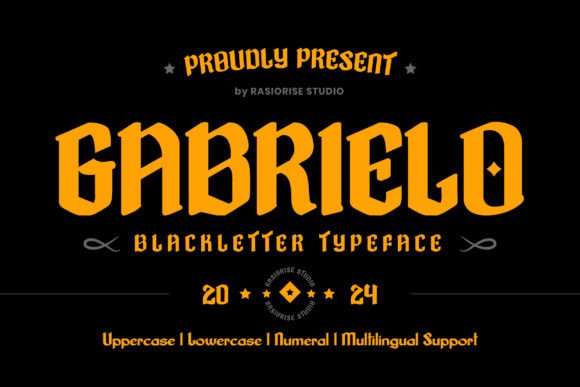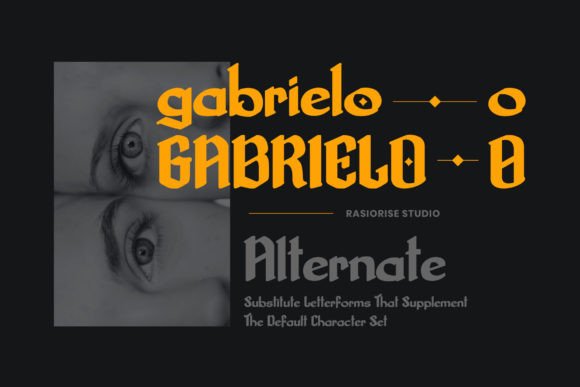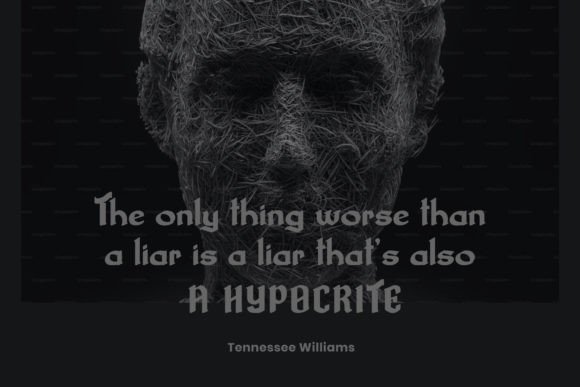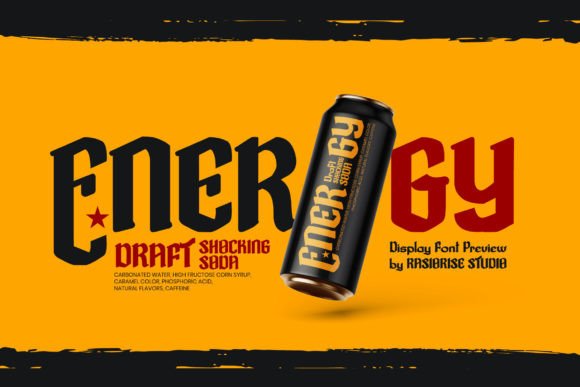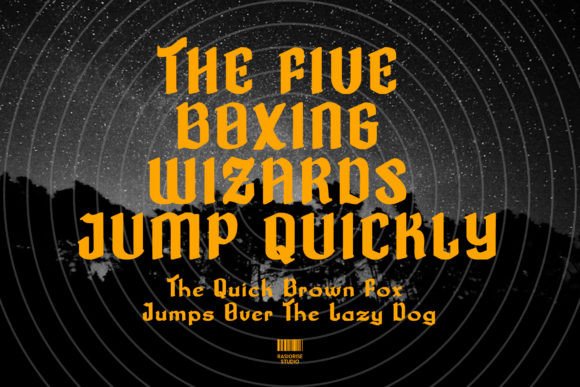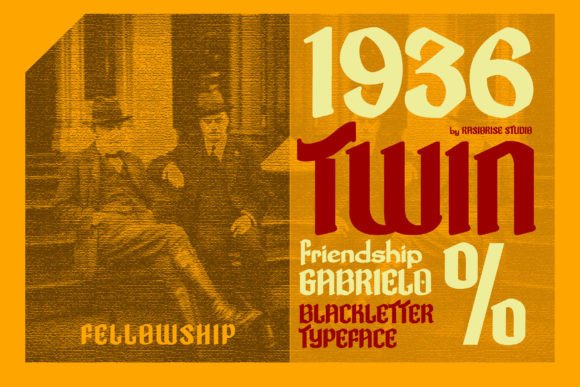
Gabrielo Font
Gabrielo is a sans-serif blackletter typeface. Gabrielo has been released for those of you who are looking for a Sans-Serif Blackletter Typeface, The font is inspired by the Old English Font used in Western Europe Style with a few combined to turn them into a bit of a modern bold style font. It’s very suitable for logos, headlines, newspaper, book covers, certificates, comic beer labels, merchandise, packaging labels, badge/emblem logos, tattoo, and much more.